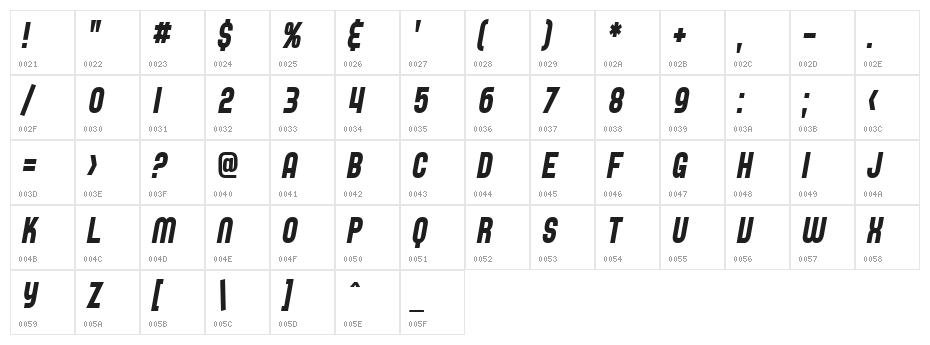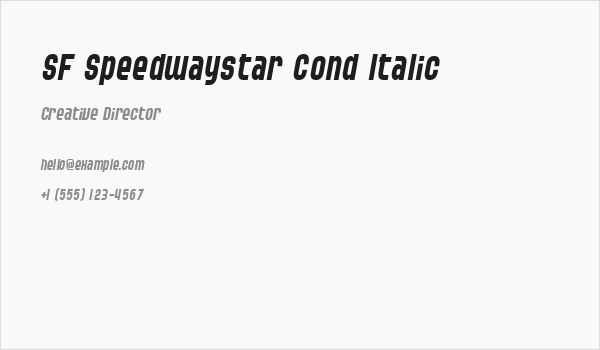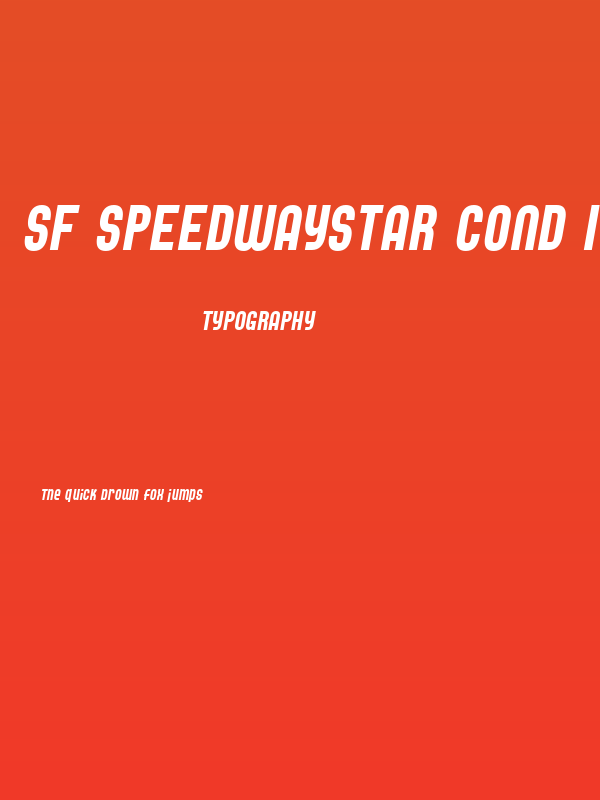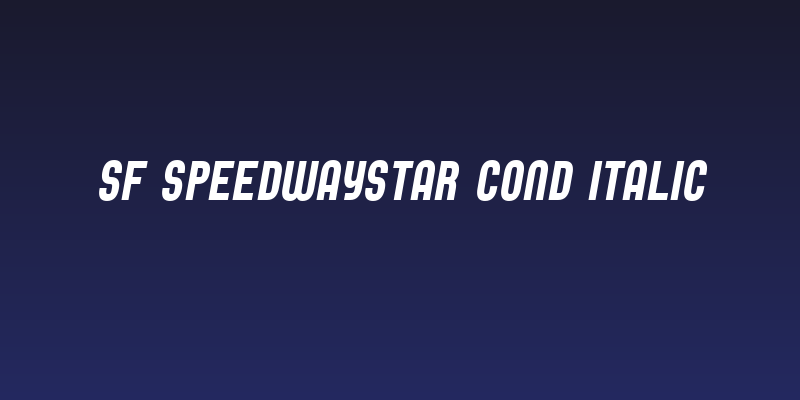
SF Speedwaystar Cond Italic Font
SF Speedwaystar Cond Italic Description
This font exhibits a bold and dynamic style with a distinctly italicized slant, giving it a sense of motion and speed. The characters are condensed, enhancing the compact and streamlined appearance. Each letter features a consistent stroke width, contributing to a uniform and cohesive look. The uppercase and lowercase letters maintain a strong presence, while the numerals and special characters are designed to match the overall aesthetic. The font's modern and sporty vibe makes it ideal for projects that require a sense of energy and movement.
| Proposed Projects | Ideal for sports branding, automotive advertisements, dynamic posters, and any project needing a sense of speed and energy. |